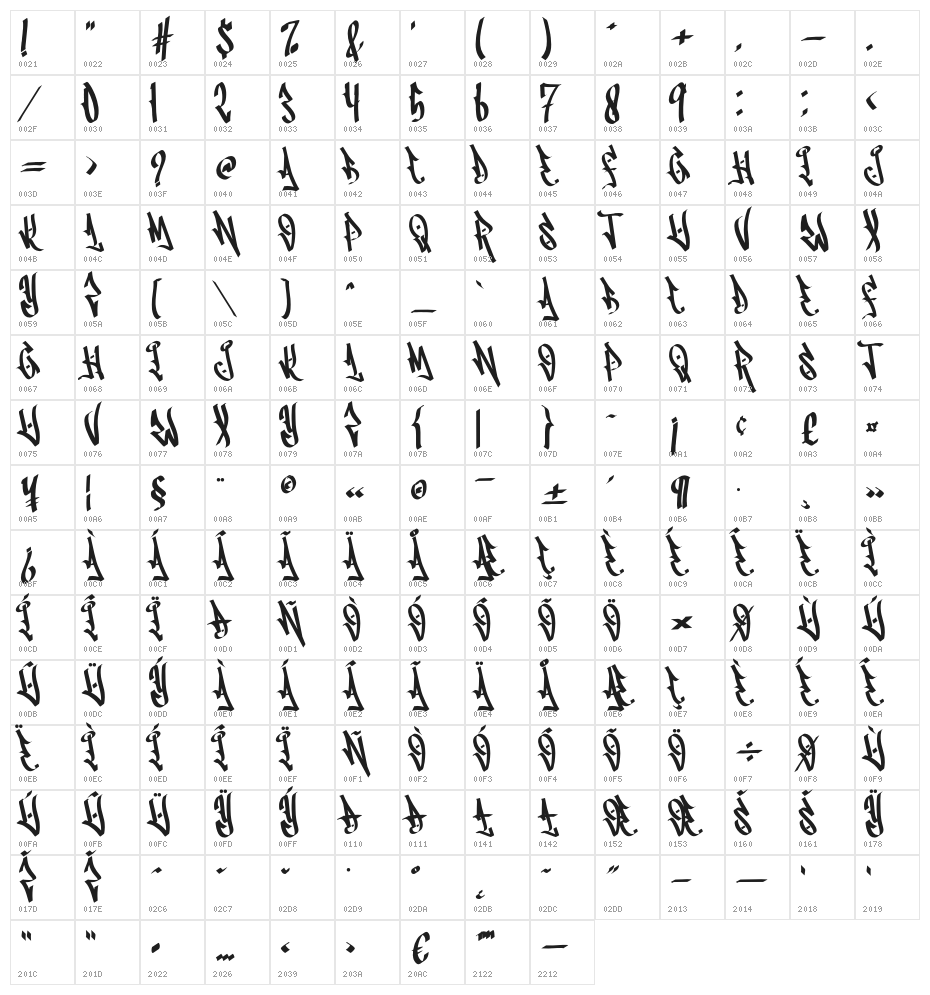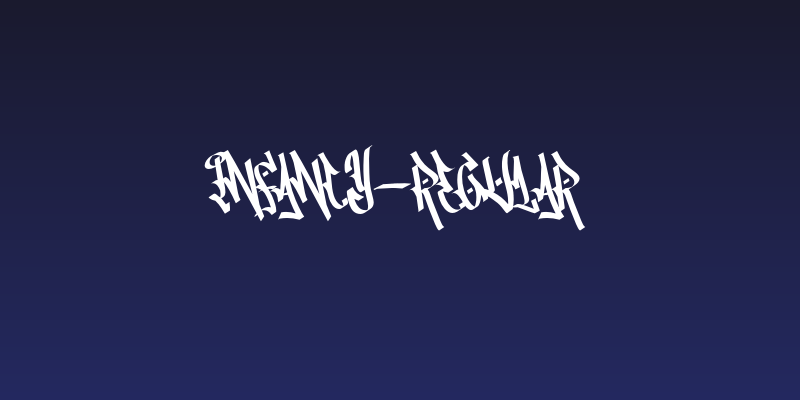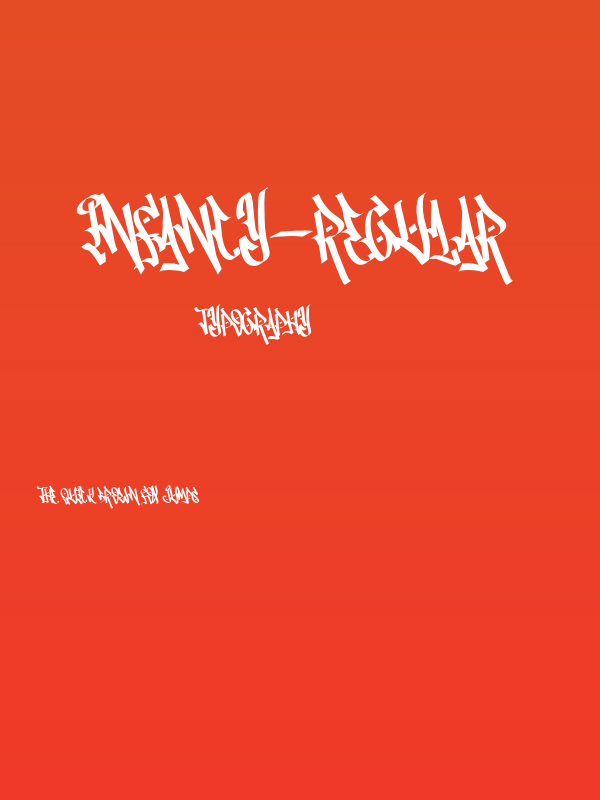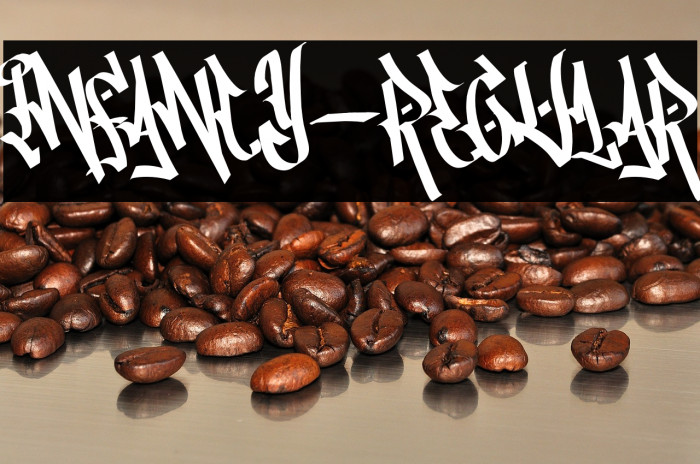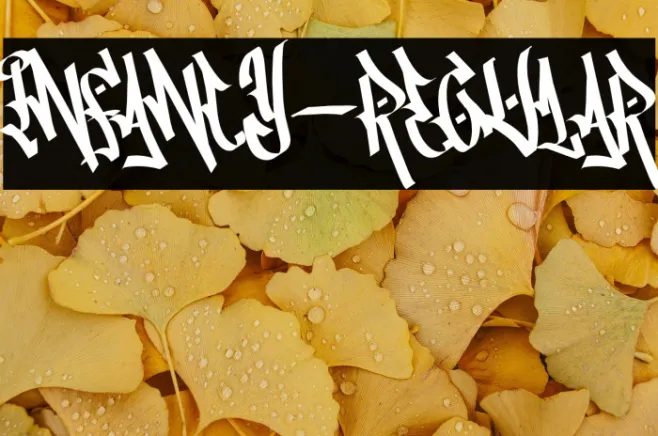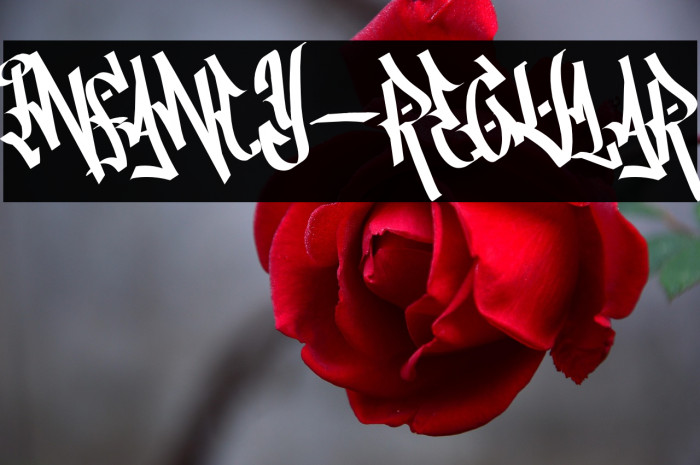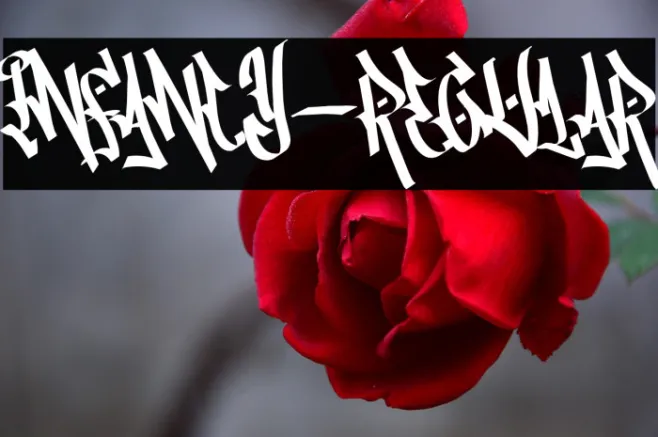
INFANCY-Regular Font
INFANCY-Regular Description
This font features a bold, graffiti-inspired style with sharp, angular lines and a dynamic, energetic appearance. The characters are heavily stylized, with exaggerated curves and points that create a sense of movement and intensity. The uppercase and lowercase letters maintain a consistent design, while the numbers and special characters follow the same bold and expressive aesthetic. This font is visually striking and commands attention, making it ideal for projects that require a strong visual impact.
| Overall Style | Modern, Urban |
| Proposed Projects | Ideal for street art designs, urban-themed posters, music album covers, and edgy branding projects. |